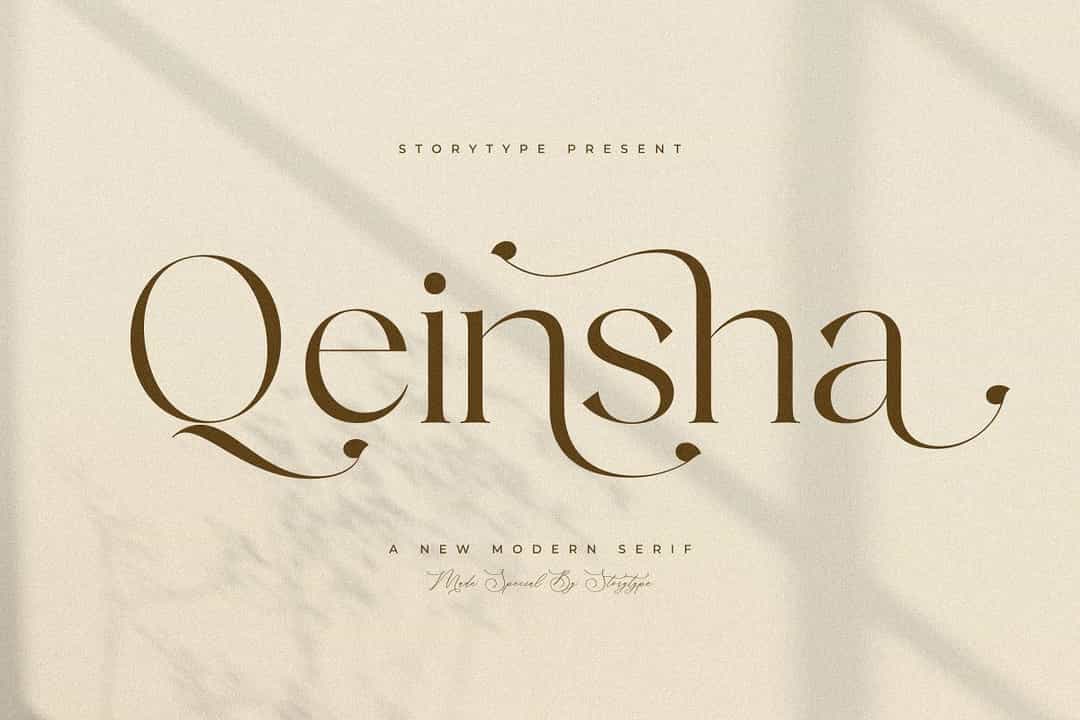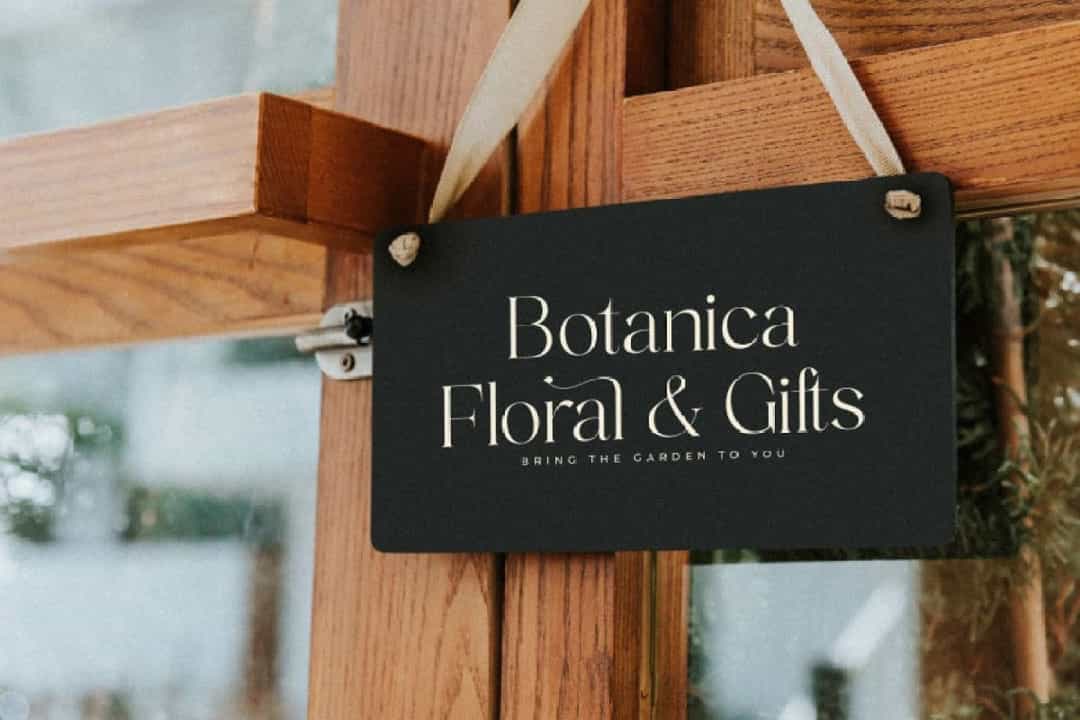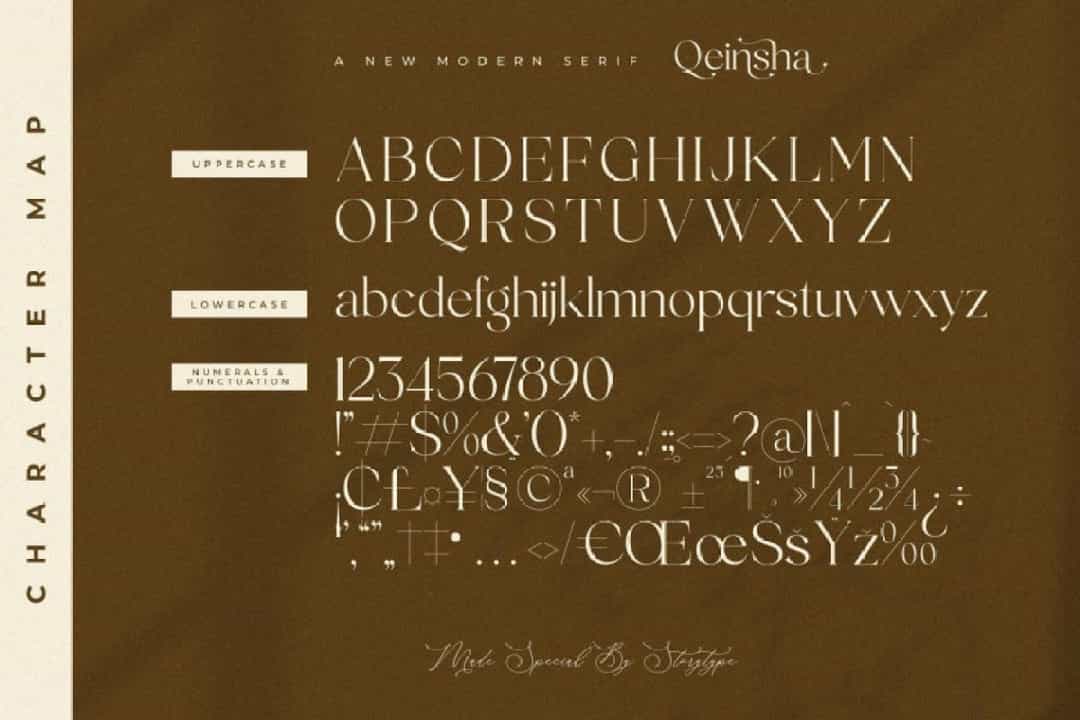
Qeinsha Font from Storytype is an elegant yet contemporary serif typeface with its own distinct style and look. Perfect for creating logos, movie or book name designs, fashion brand clothing designs, magazine letters, quotes and many other purposes, Qeinsha Font makes a lasting impression wherever used.